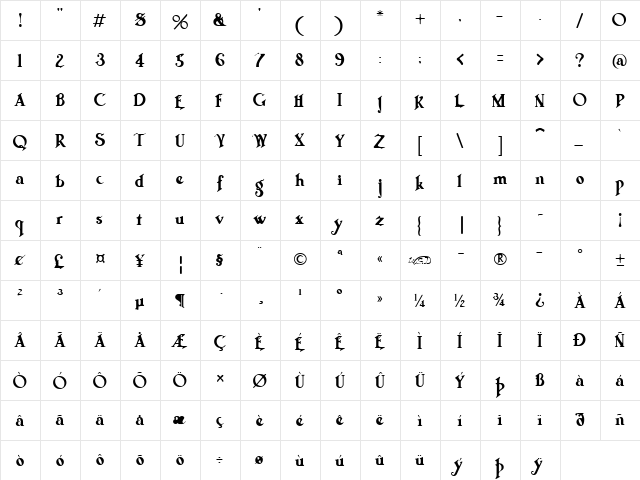
Trifles Regular
Design Context for Trifles Typeface
Trifles is a composed and adaptable typeface that performs quietly and consistently across a wide range of design contexts.